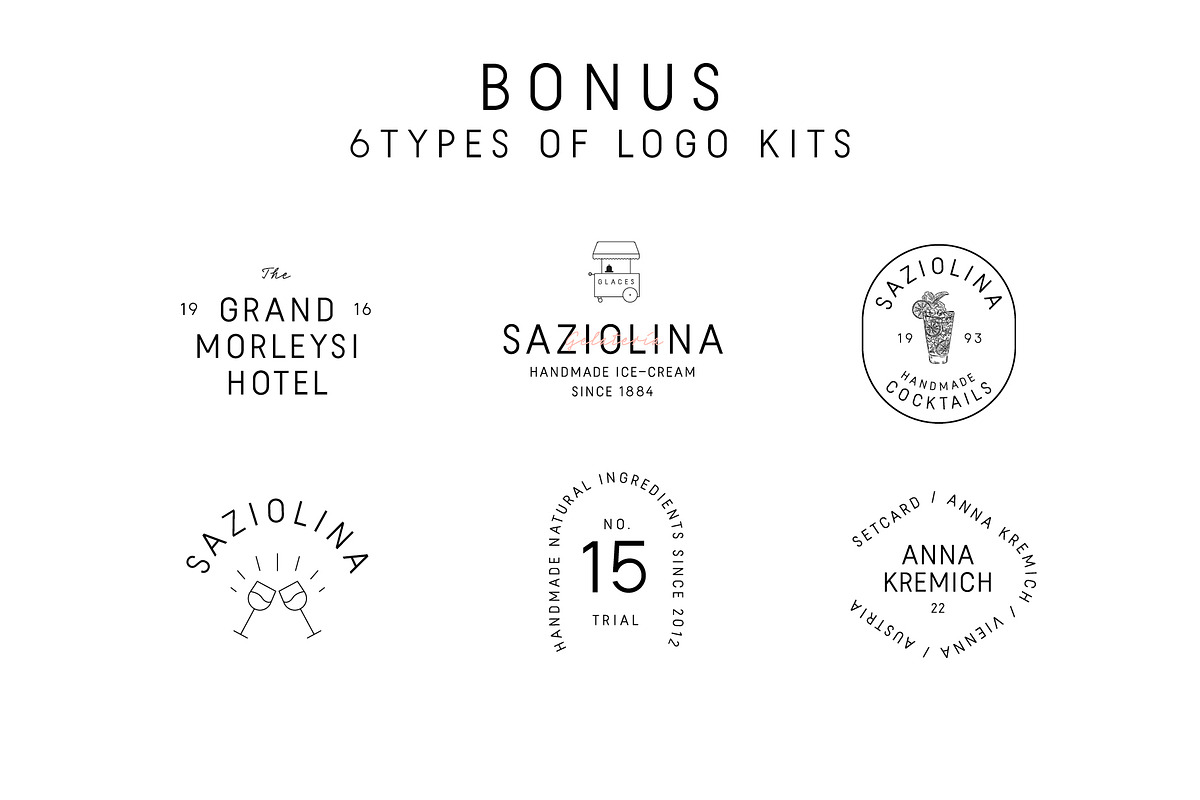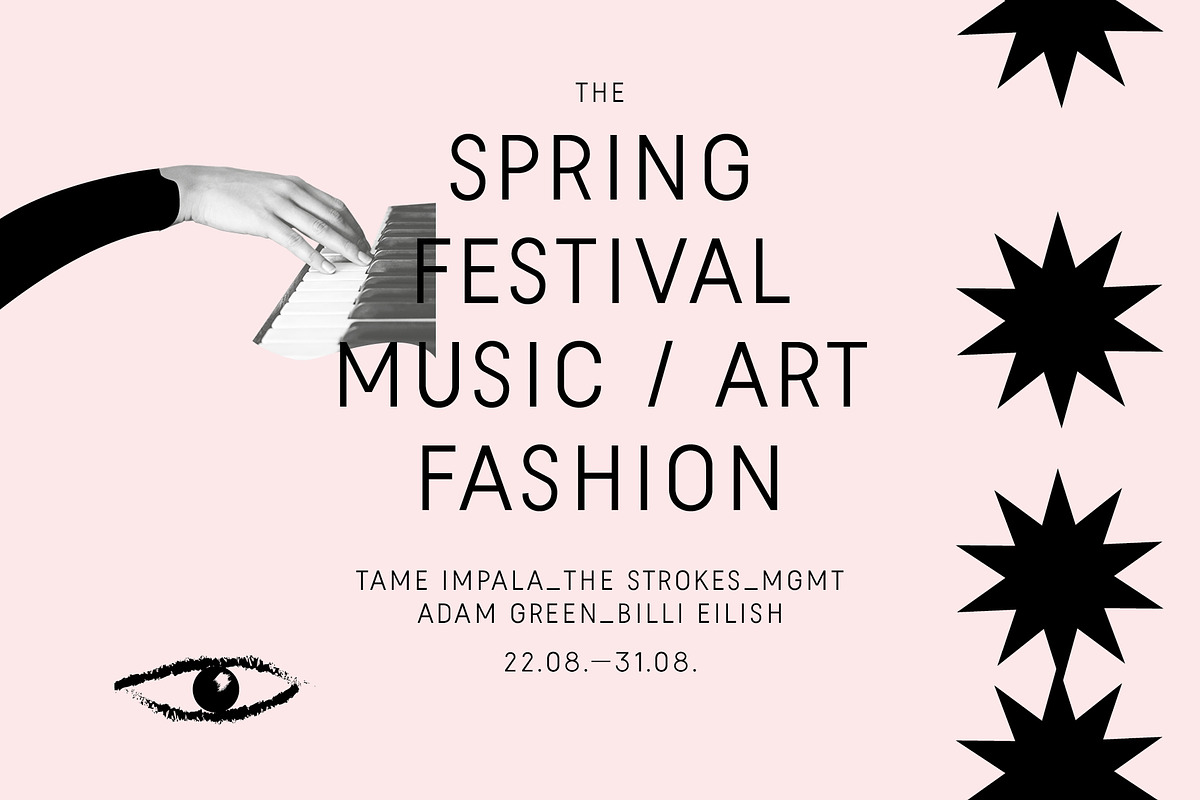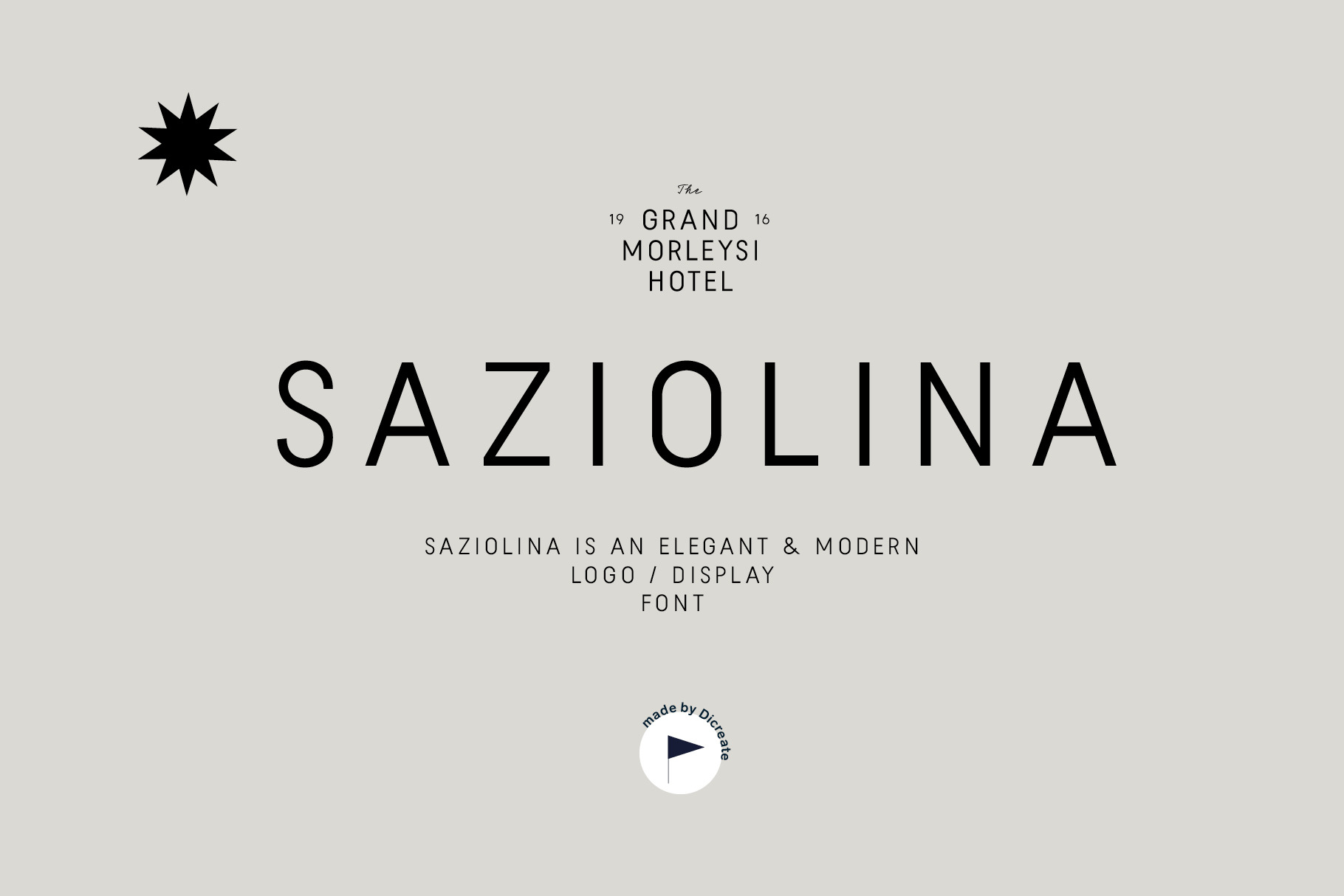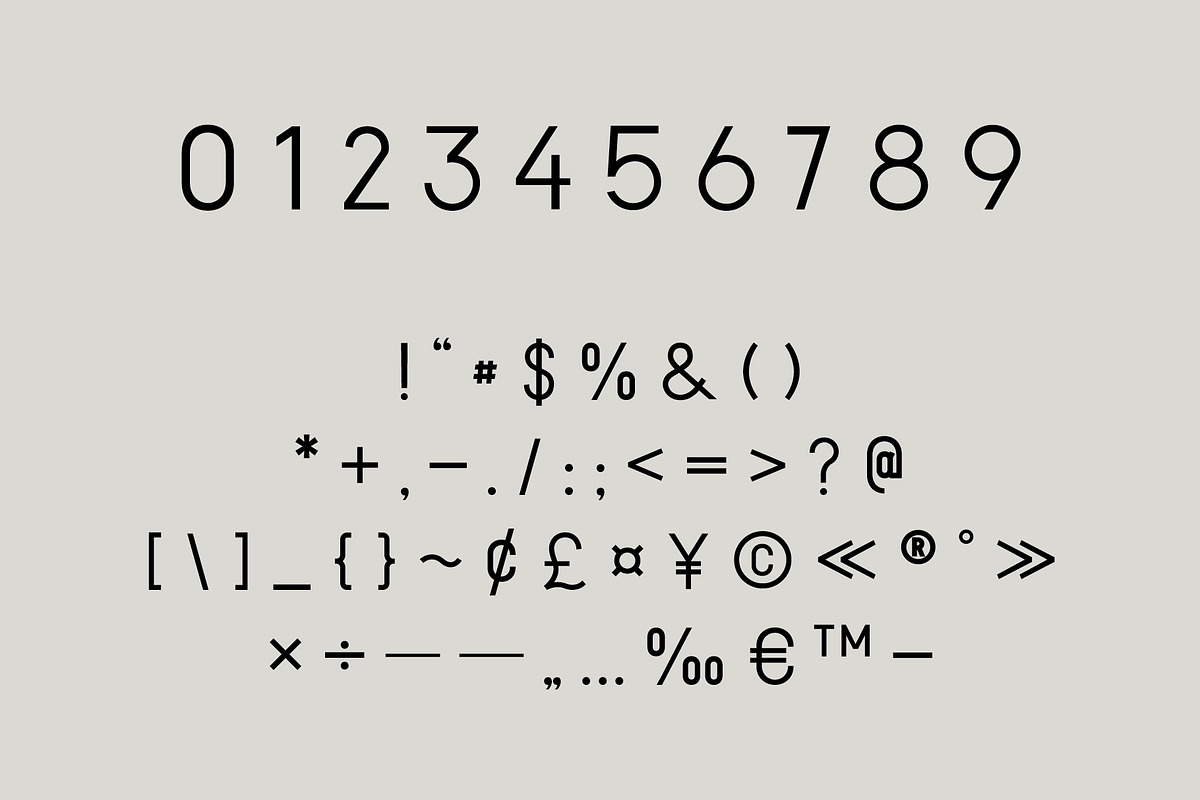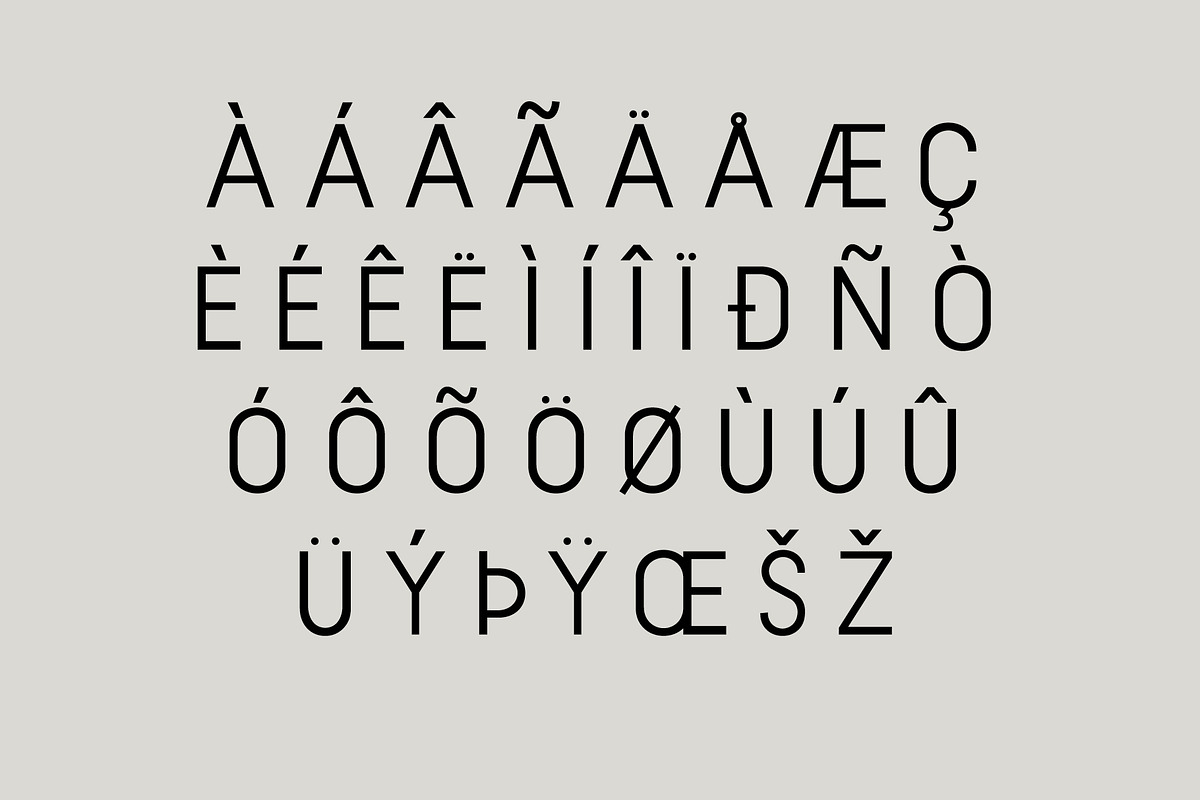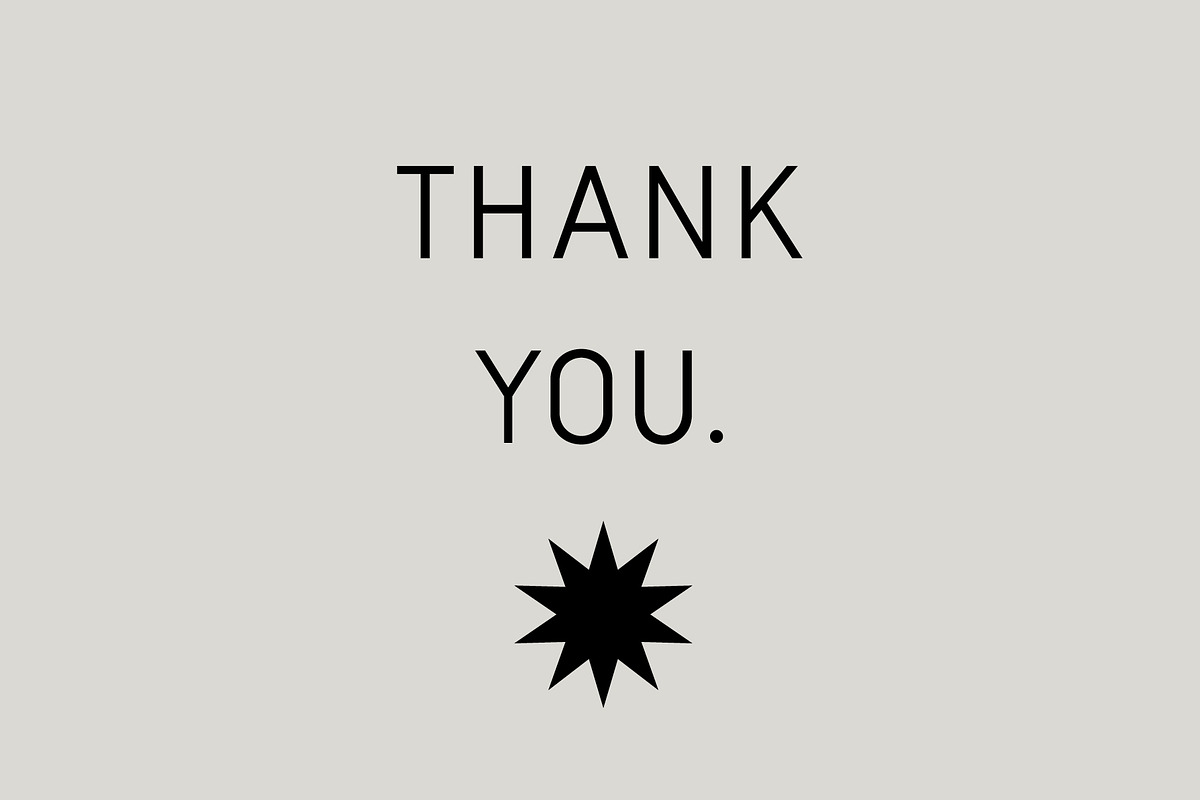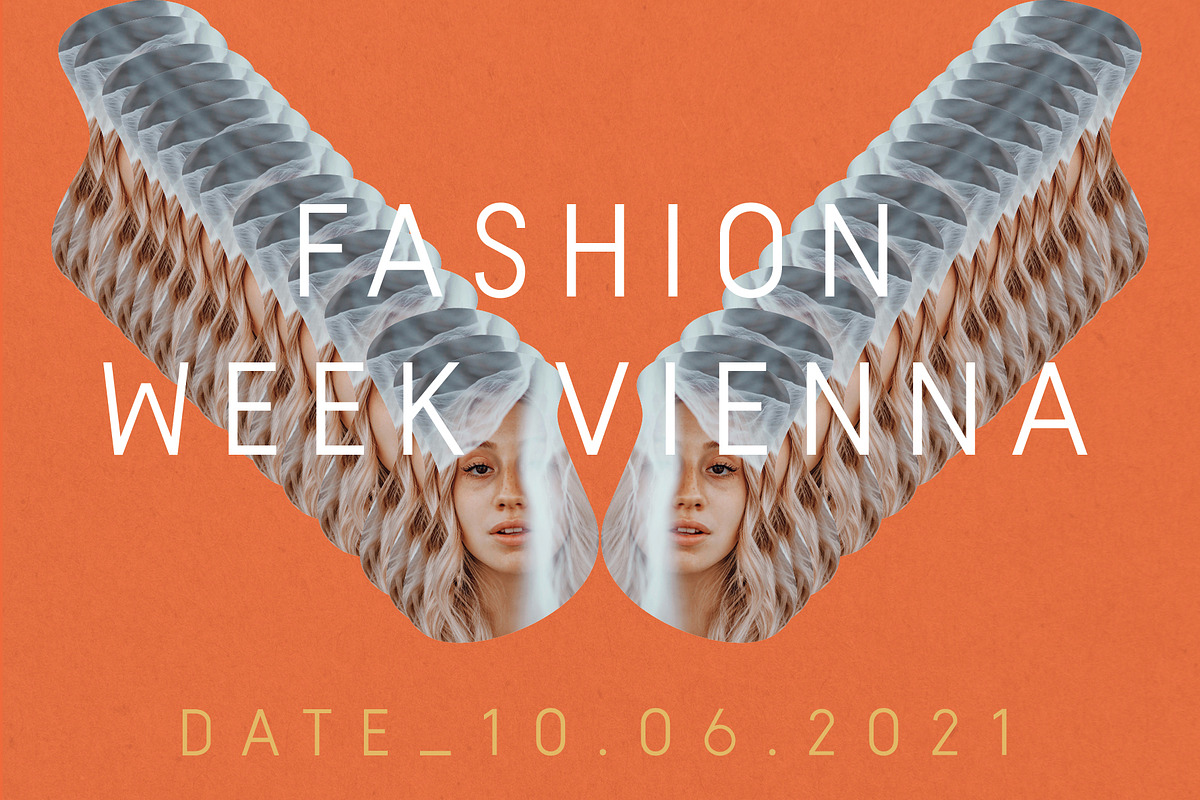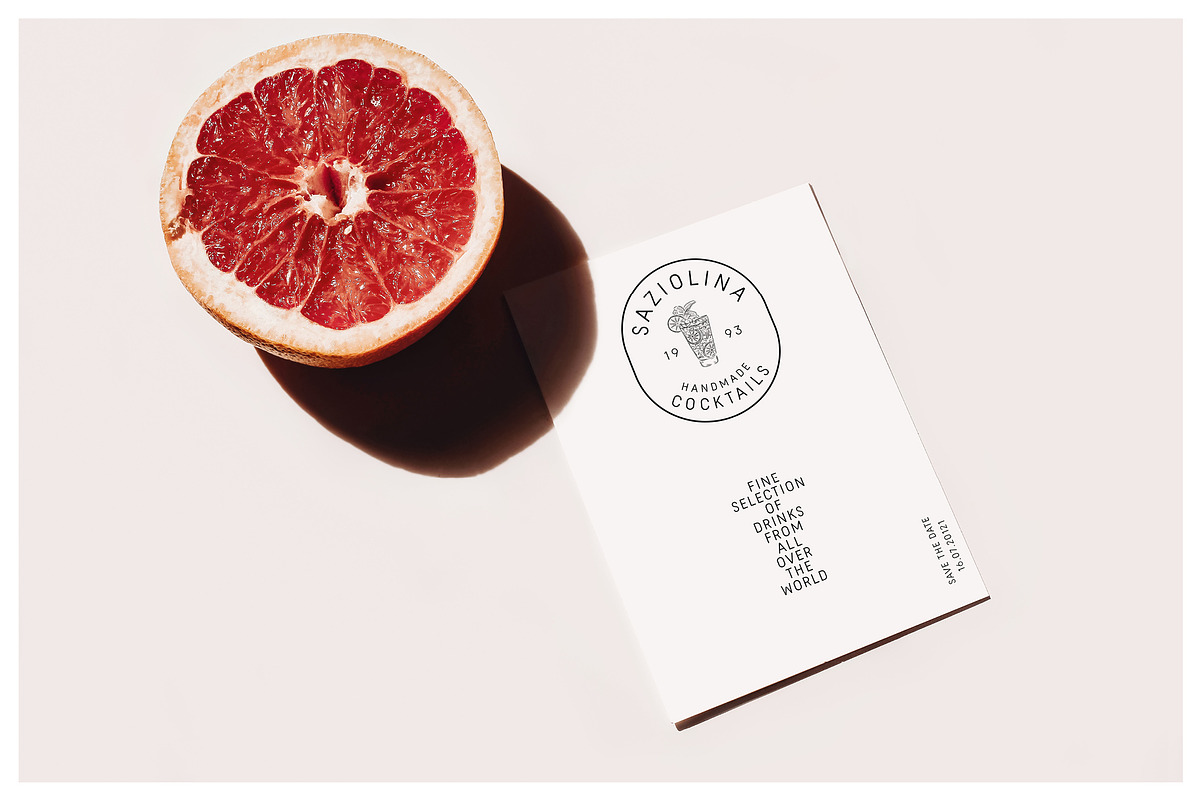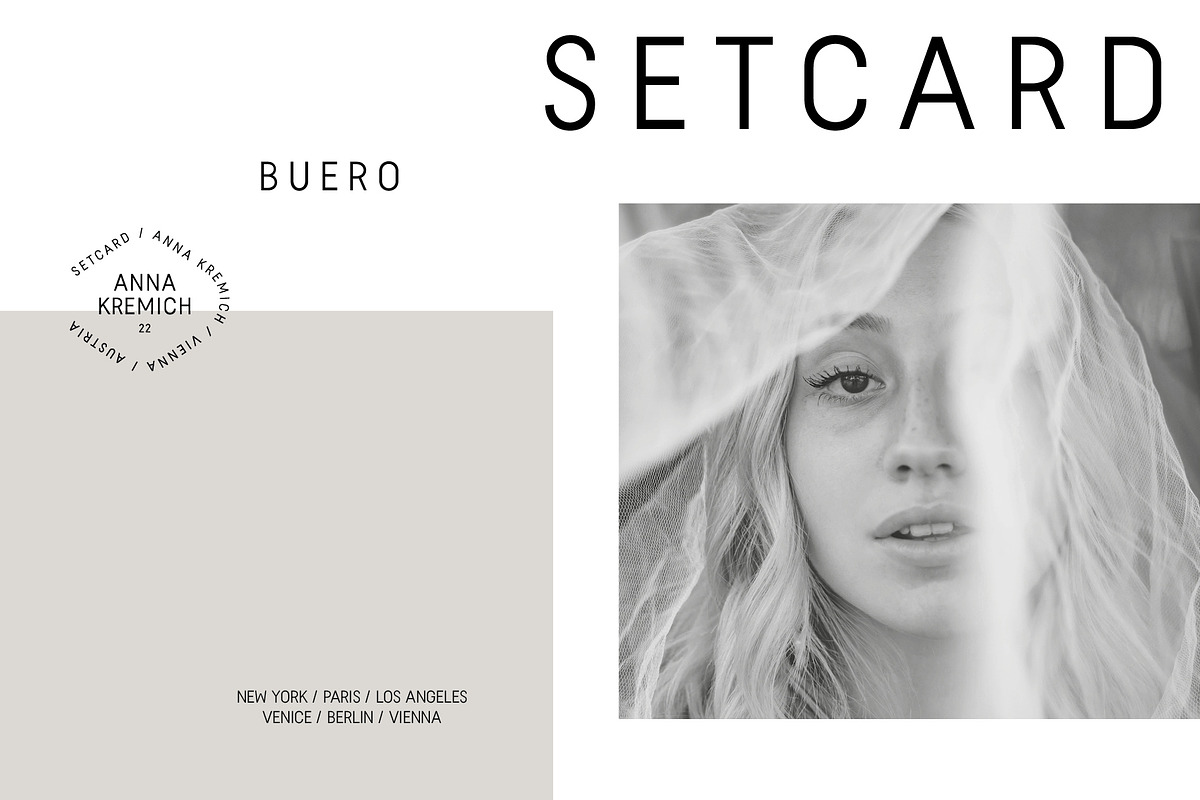
SAZIOLINA / DISPLAY LOGO FONT
Introducing "Saziolina"
Saziolina is an elegant and modern Display font with an chic look and retro character. It is great for Logos and Branding in a modern way. This capital letter font is also great for product packaging, editorial design, poster design …
- LETTERS (Capital)
- NUMBERS
- PUNCTUATION